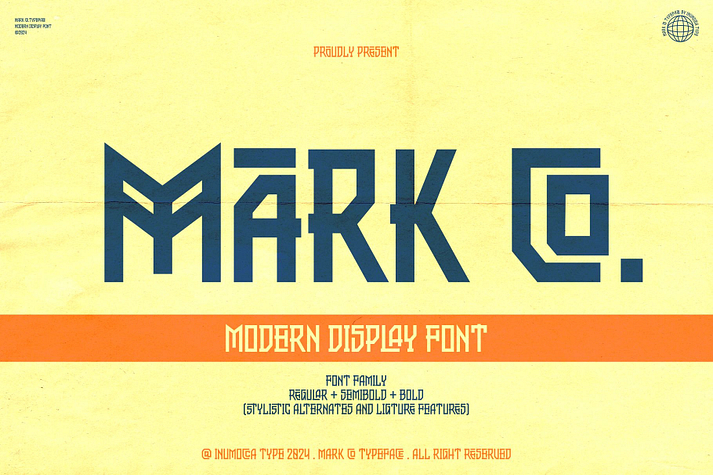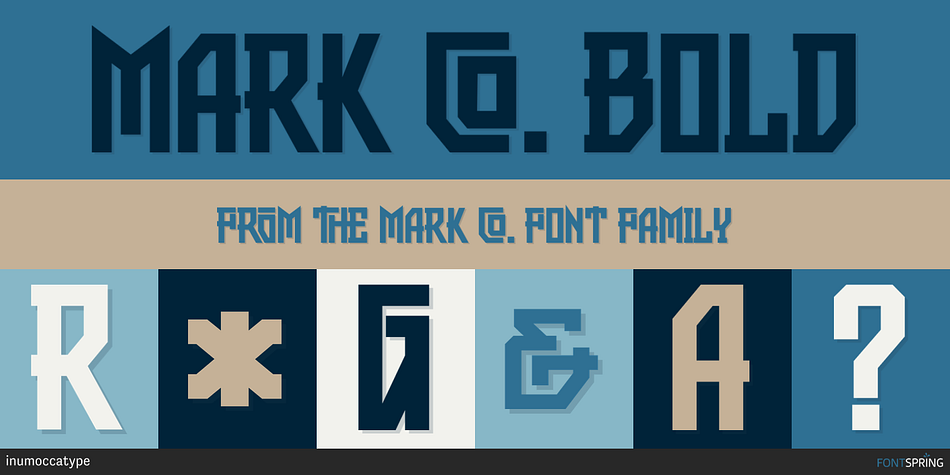
Mark Co. Bold
Mark Co. is a font family. This typeface has three styles and was published by inumoccatype.
Mark Co. font is a elegant geometric sans serif front, Modern Display font with 3 Weight variant and playful feel, its perpect for web anf print design project, it was crafted carefully to form a structured and strong letterform that is perpect for covering your Project, You can playing to change ghlyps with Stylistic feature. like Lettering, Website Interface, Magazine, Branding, Poster, Quotes Lettering, Logos, and more your project design.
• Unique glyphs
• Multilingual Characters
• UPPERCASE
• Lowercase
• Numeric
• Symbol
• Punctuation Character
• Stylistic Alternates
• Ligatures
• Mark Co. Reguler
• Mark Co. Semibold
• Mark Co. Bold